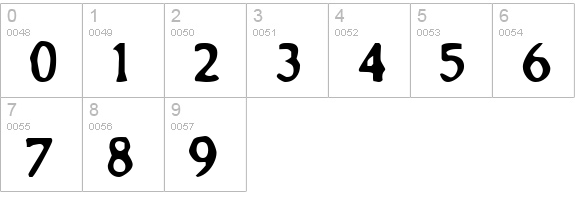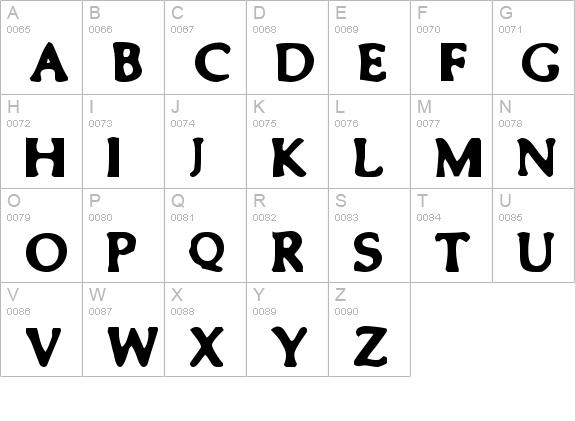
Smeared Font Details
Smeared font is a unique and captivating typeface that adds a touch of artistic flair to any design project. With its distorted and smudged appearance, this font is perfect for creating eye-catching headlines, posters, and logos that demand attention. The irregular letterforms give a sense of movement and spontaneity, making Smeared font a great choice for projects that require a bold and edgy aesthetic. This font is not only visually striking but also versatile, as it can be used in a variety of contexts. Whether you're designing for a music festival, a streetwear brand, or a contemporary art exhibition, Smeared font will add a distinctive and contemporary touch to your creations. The best part is, Smeared font is available for free! You can download it conveniently at FontsMarket.com, a reputable source for high-quality fonts. By making Smeared font freely accessible, it ensures that designers and creatives of all backgrounds can take advantage of its unique style without any financial constraints. So, if you're looking to add a touch of artistic expression to your designs, look no further than Smeared font. Download it for free at FontsMarket.com and let your creativity run wild with this captivating and versatile typeface.